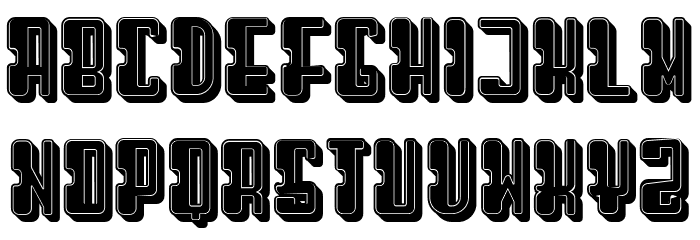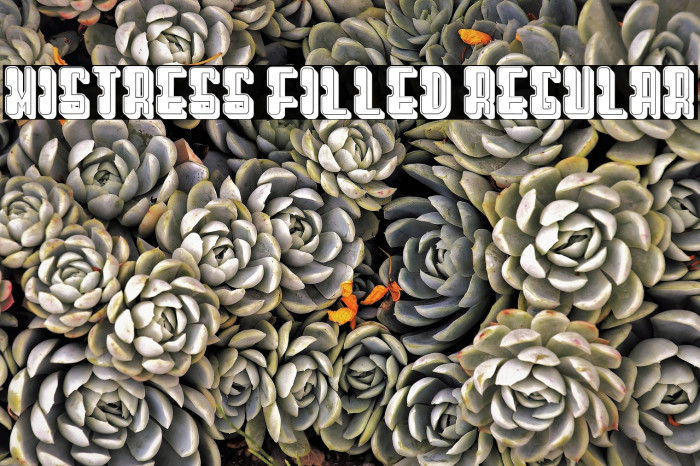
Mistress Filled Regular Font
This font features a bold, geometric design with a strong presence. The characters are constructed with thick, blocky strokes and a distinct outline that gives them a three-dimensional effect. The uppercase letters are particularly striking, with a uniform height and width that creates a cohesive look. The font's style is reminiscent of retro and futuristic themes, making it ideal for projects that require a bold and eye-catching typeface. The spacing between characters is tight, enhancing the compact and solid appearance of the text. This font is well-suited for display purposes, where its unique style can be fully appreciated.
A bold, geometric font with a three-dimensional outline, ideal for display use.
- Font: Mistress Filled Regular
- Proposed Projects: Perfect for posters, logos, video game titles, and any project needing a retro-futuristic look.
- Character Spacing: Tight
- Overall Style: Retro-Futuristic